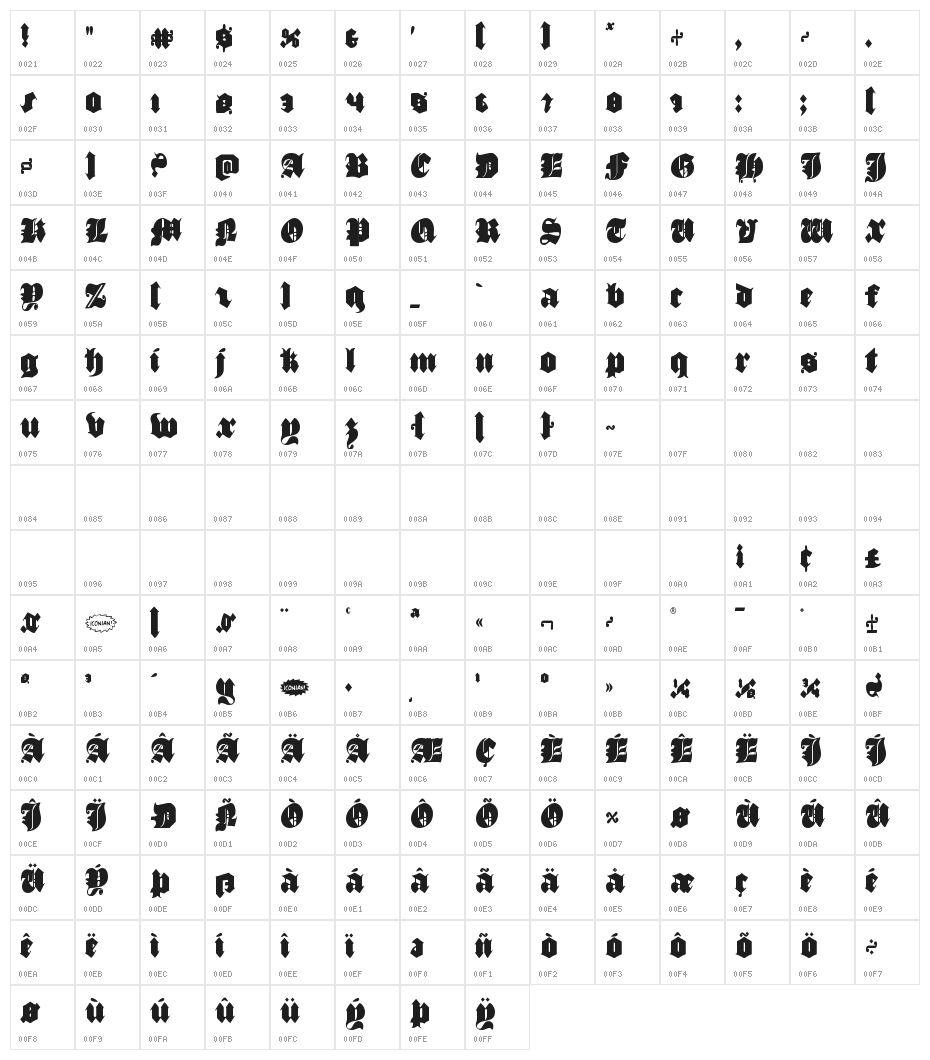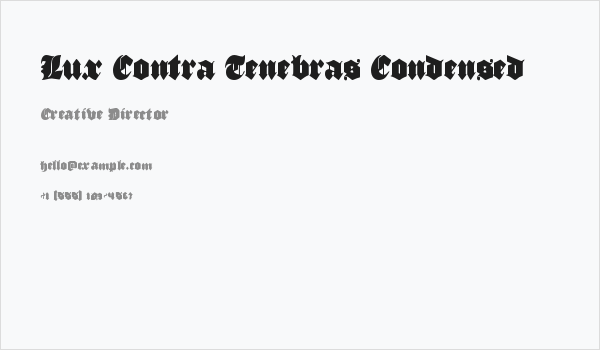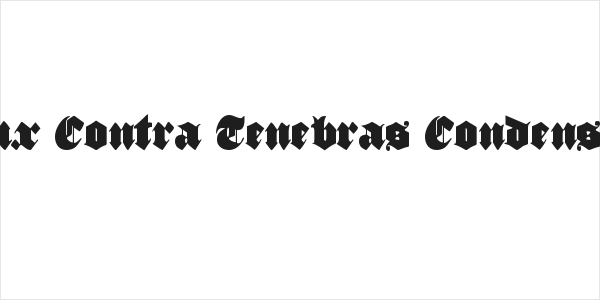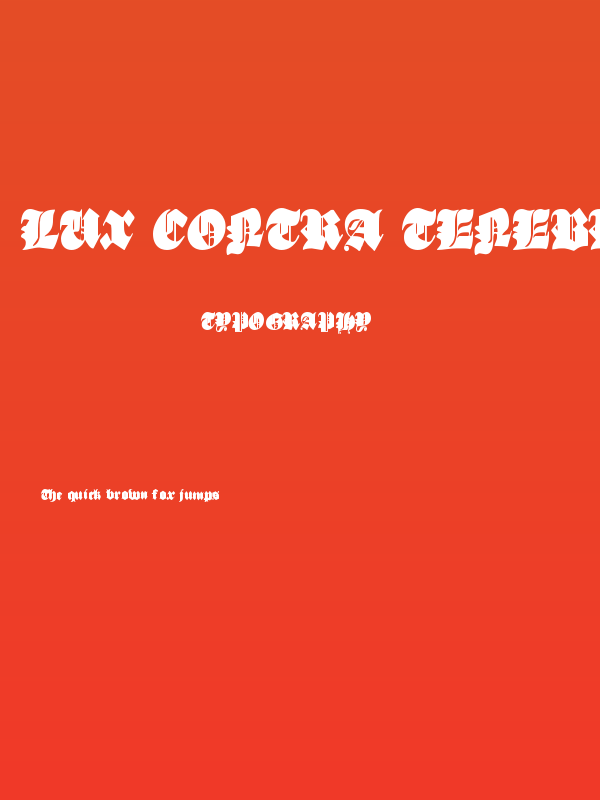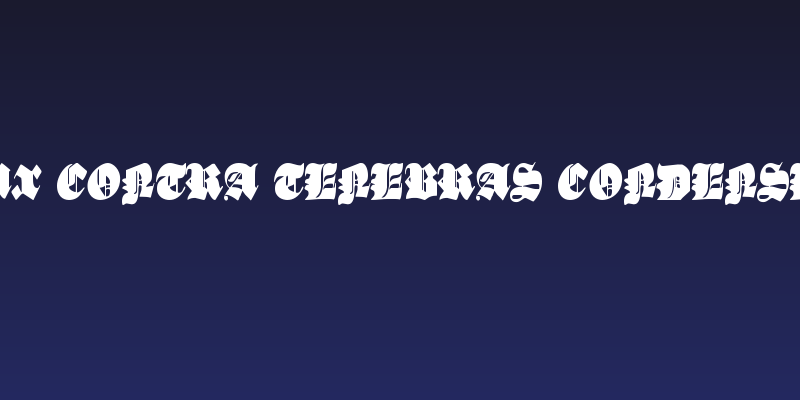
Lux Contra Tenebras Condensed Font
Lux Contra Tenebras Condensed Description
This font embodies a bold and dramatic style, reminiscent of traditional blackletter typography. It features sharp, angular lines and intricate detailing, giving it a gothic and medieval appearance. The uppercase letters are particularly ornate, with flourishes and embellishments that enhance their visual impact. The lowercase letters maintain the same boldness, ensuring consistency across the typeface. Numbers and special characters are designed with similar attention to detail, making them stand out. This font is perfect for creating a strong, historical, or formal impression.
| Overall Style | Gothic, Medieval |